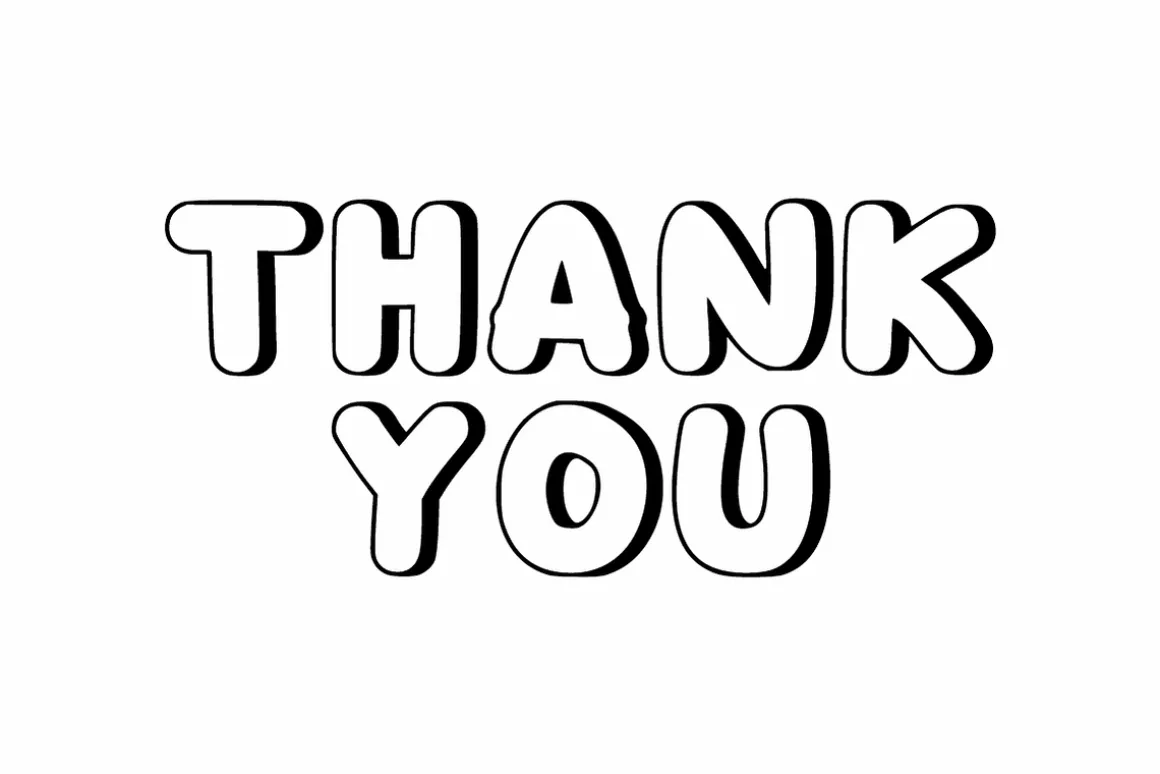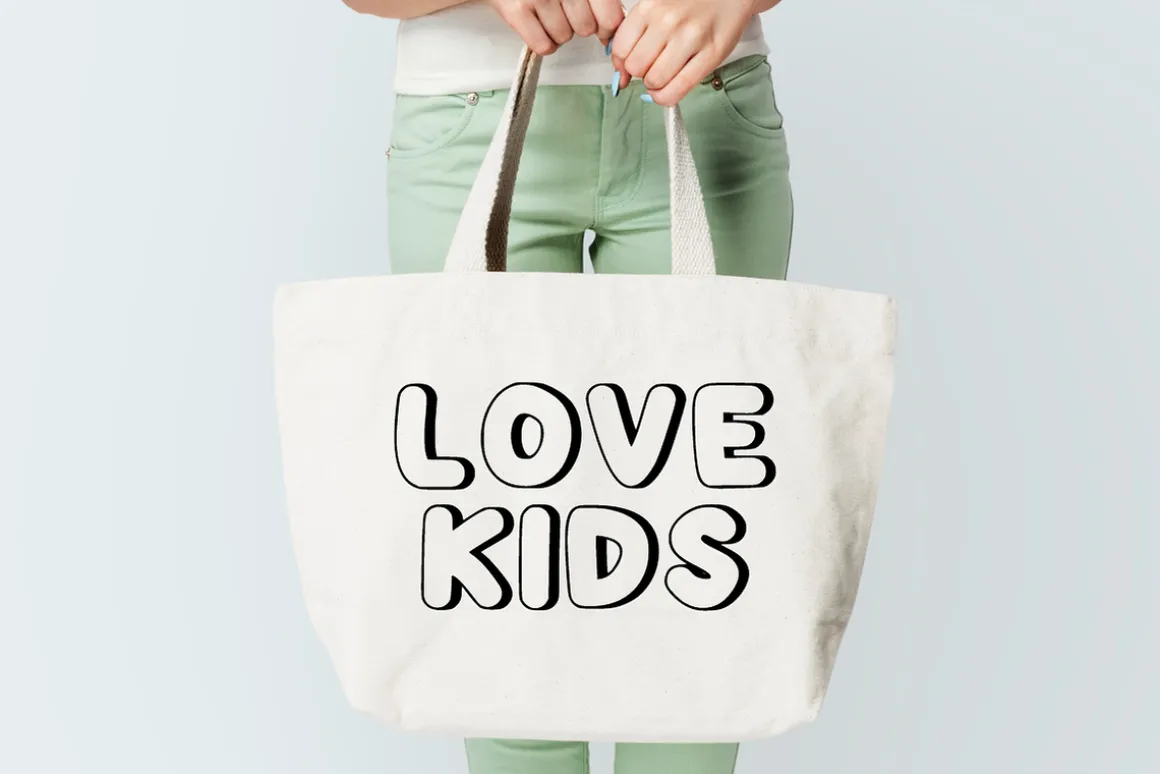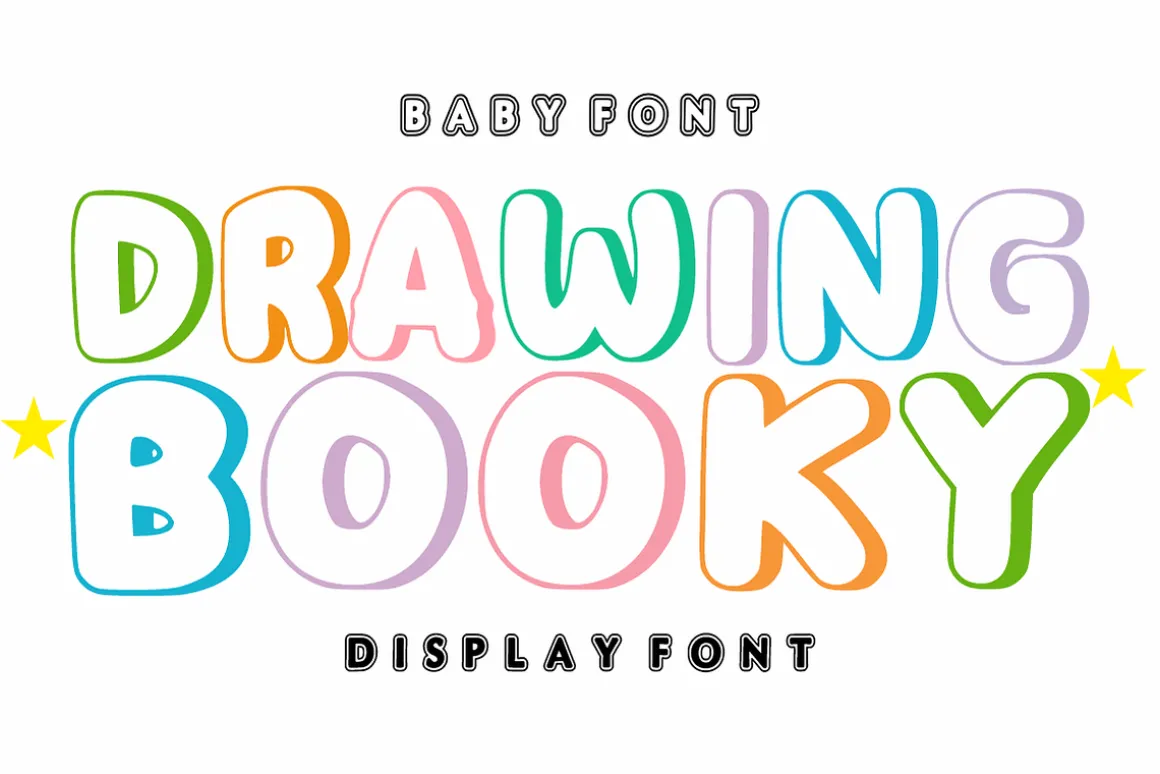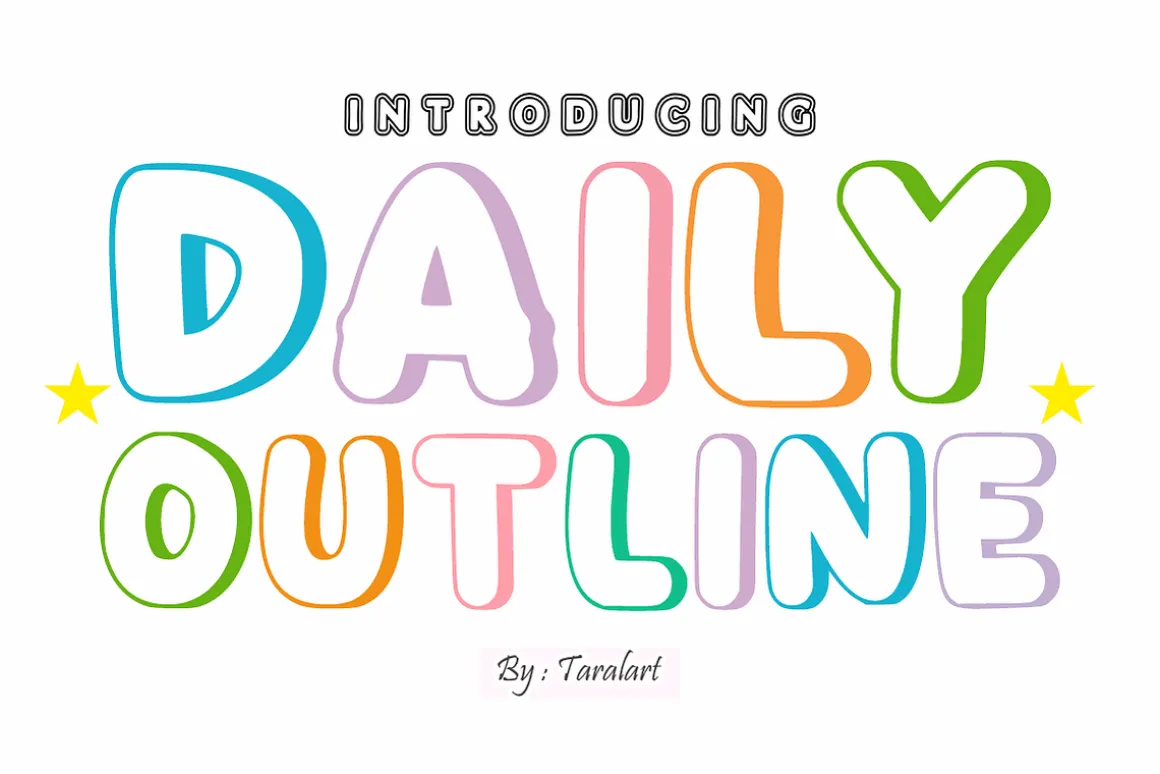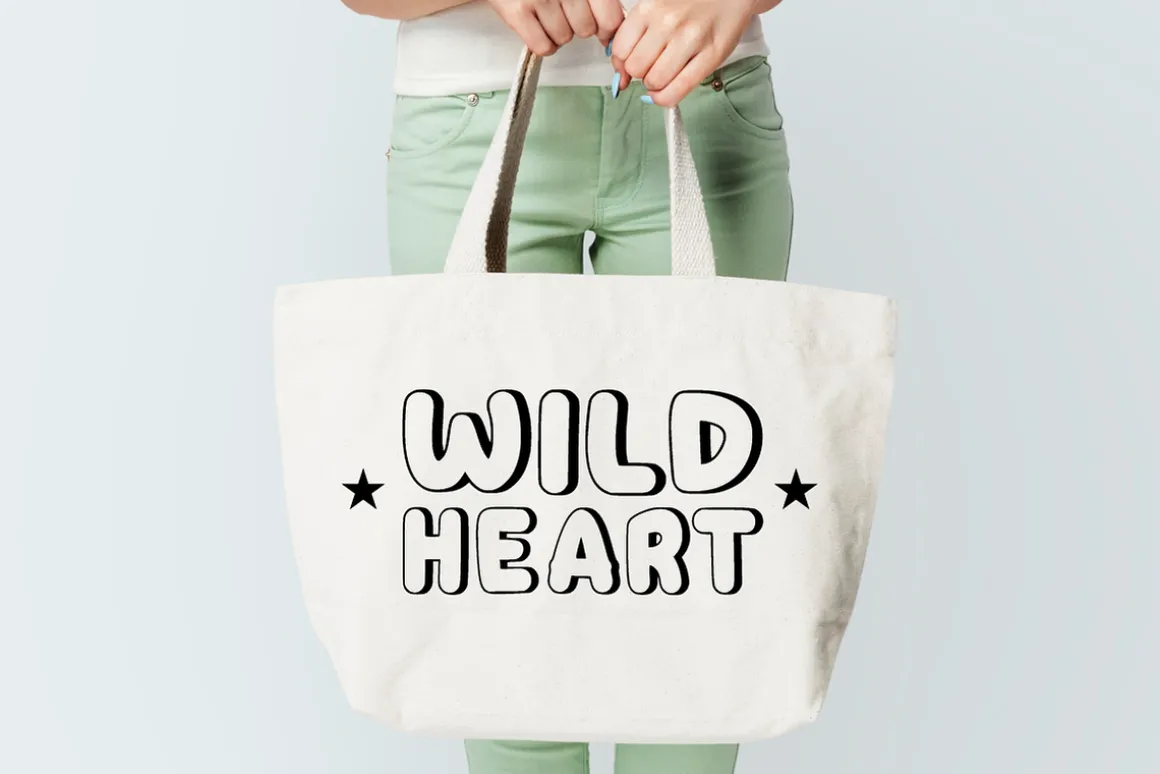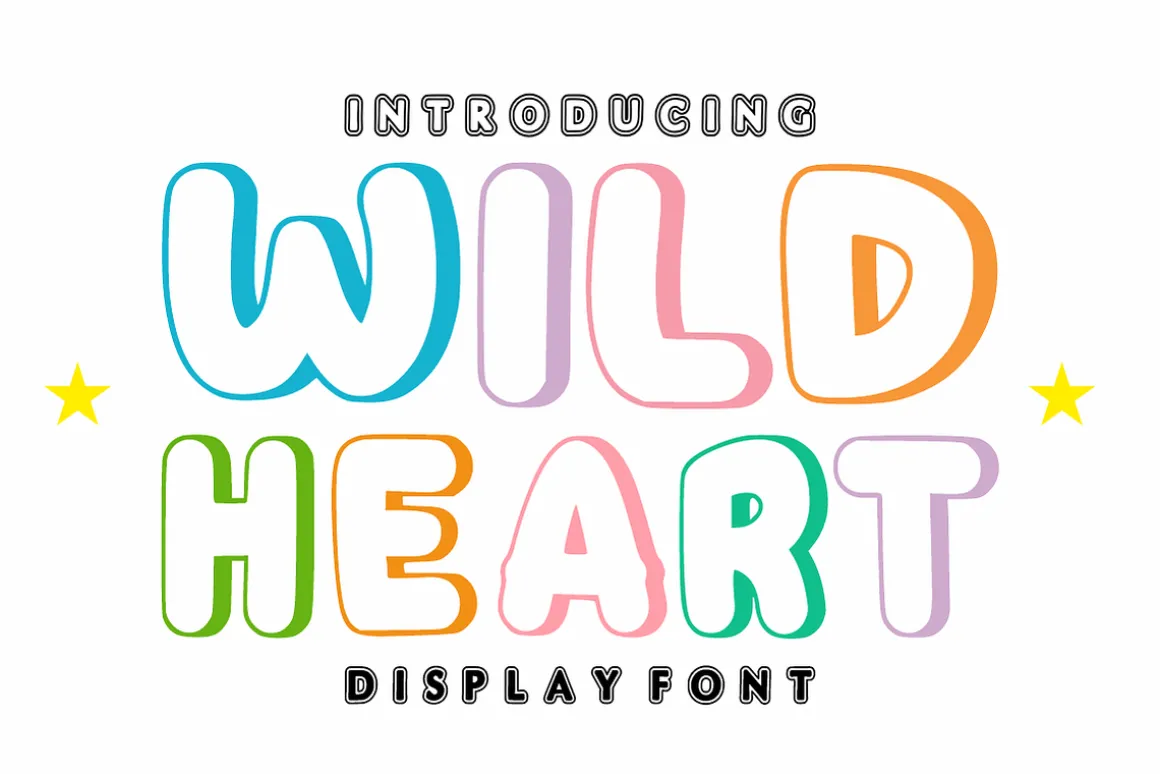
Daily Outline – Cute Outline Font
Daily Outline is a cheerful, chunky display font featuring soft, rounded hollow letterforms with a playful cartoon look. Perfect for school projects, custom crafts, and kids’ branding, this outline font adds an instant splash of joy to your titles. Its clean vector lines ensure smooth, effortless cutting on Cricut and Silhouette machines.
Uppercase Character Set
Numbers & Basic Punctuation
Ideal For:
Classroom decor and teacher resources
Custom stickers and planner decals
Kids’ apparel and t-shirt merchandise
Children’s book covers and playful logos
Birthday party invitations and banners
Cricut and Silhouette vinyl crafts